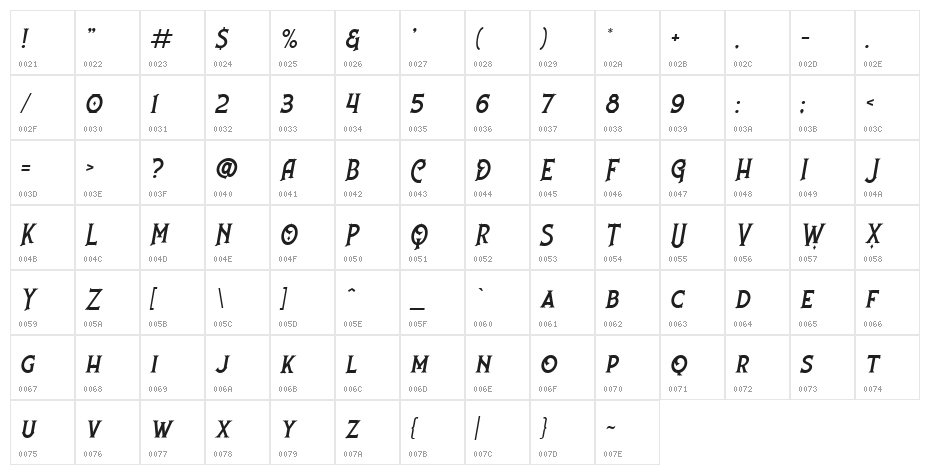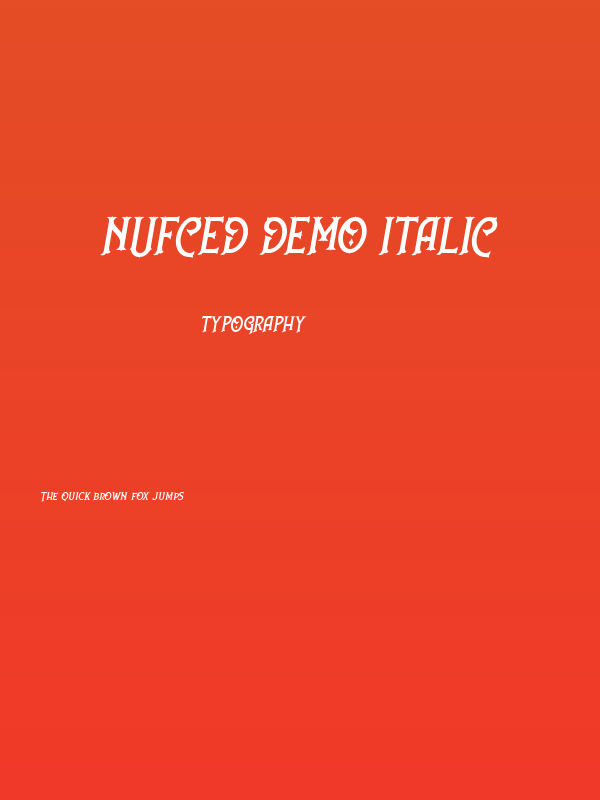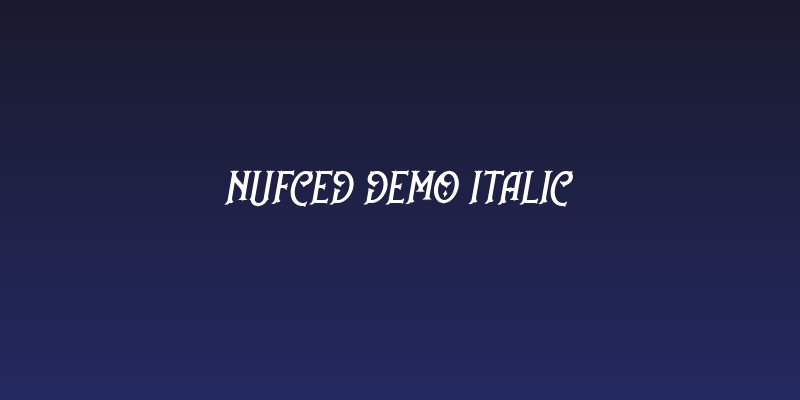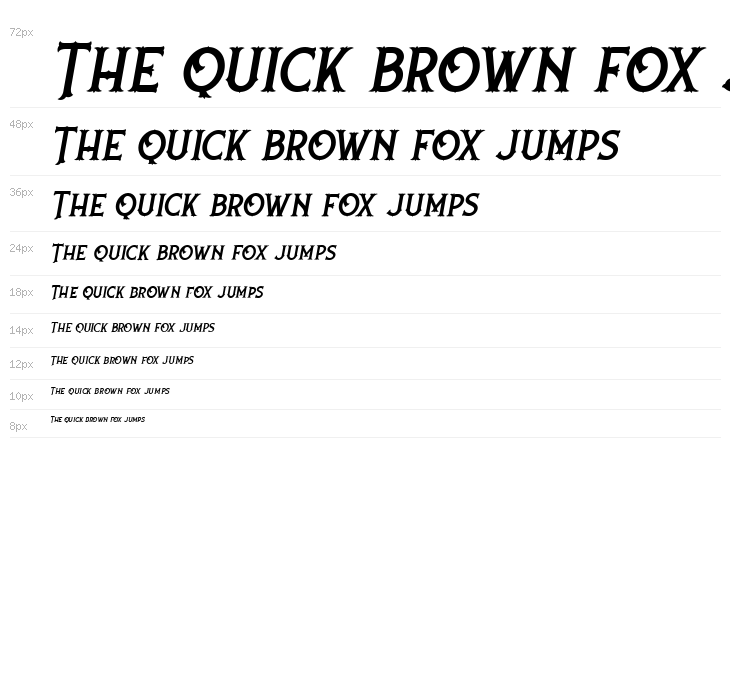
Nufced DEMO Italic Font
Nufced DEMO Italic Description
This font features a bold and dynamic style with sharp, angular serifs and a distinct italic slant. The characters are designed with a high level of contrast, showcasing thick vertical strokes and thinner horizontal lines. The overall appearance is both aggressive and elegant, making it suitable for impactful and attention-grabbing designs. The uppercase and lowercase letters maintain a consistent style, with unique flourishes that add a decorative touch. Numbers and special characters are equally stylized, ensuring a cohesive look across all elements.
| Proposed Projects | Ideal for branding, poster design, book covers, and any project requiring a strong visual impact. |